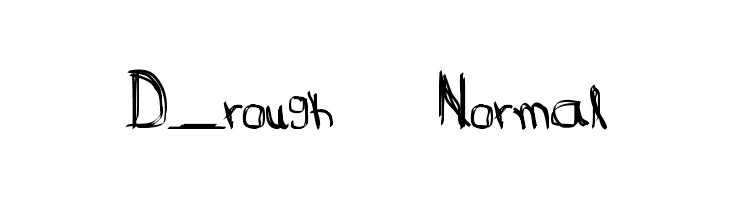
( Fonts by Sang Seo - LALATO FONTS. Personal-use only. For commercial use please contact owner. )
A playful, handwritten-style font with rounded, irregular letterforms.
( Shareware - new.myfonts.com/foundry/Intellecta_Design/?refby=paulow )
An elegant script font with flowing, cursive style and intricate details.
( Shareware - new.myfonts.com/foundry/Intellecta_Design/?refby=paulow )
A graceful script font with elegant, flowing calligraphic style.
( Fonts by Mycandythemes )
A dynamic and expressive handwritten script with fluid, cursive strokes.